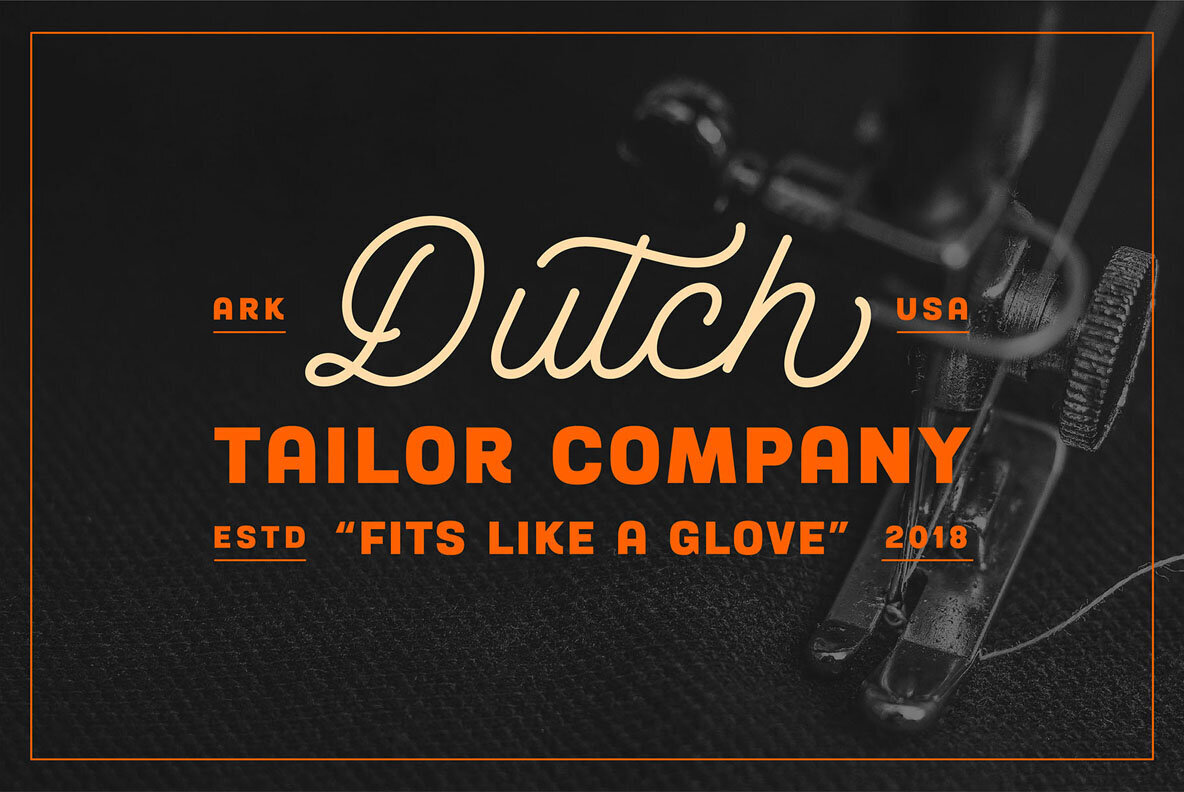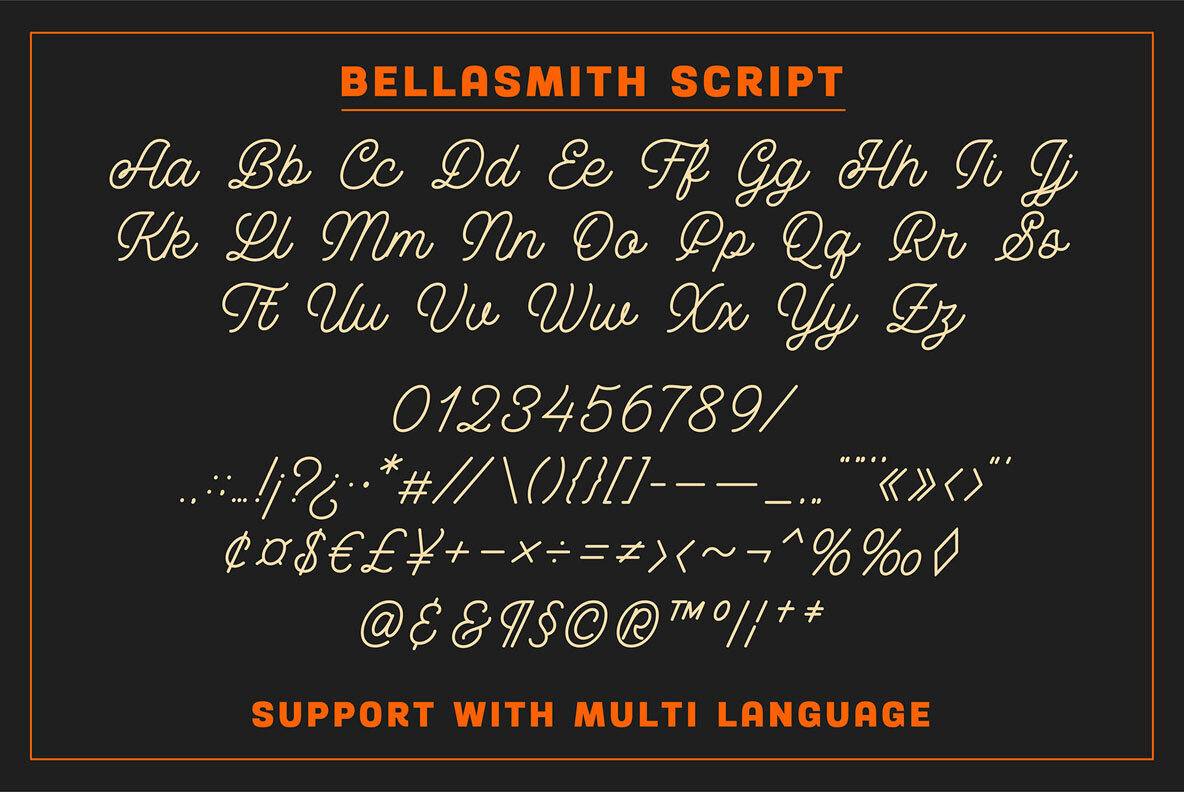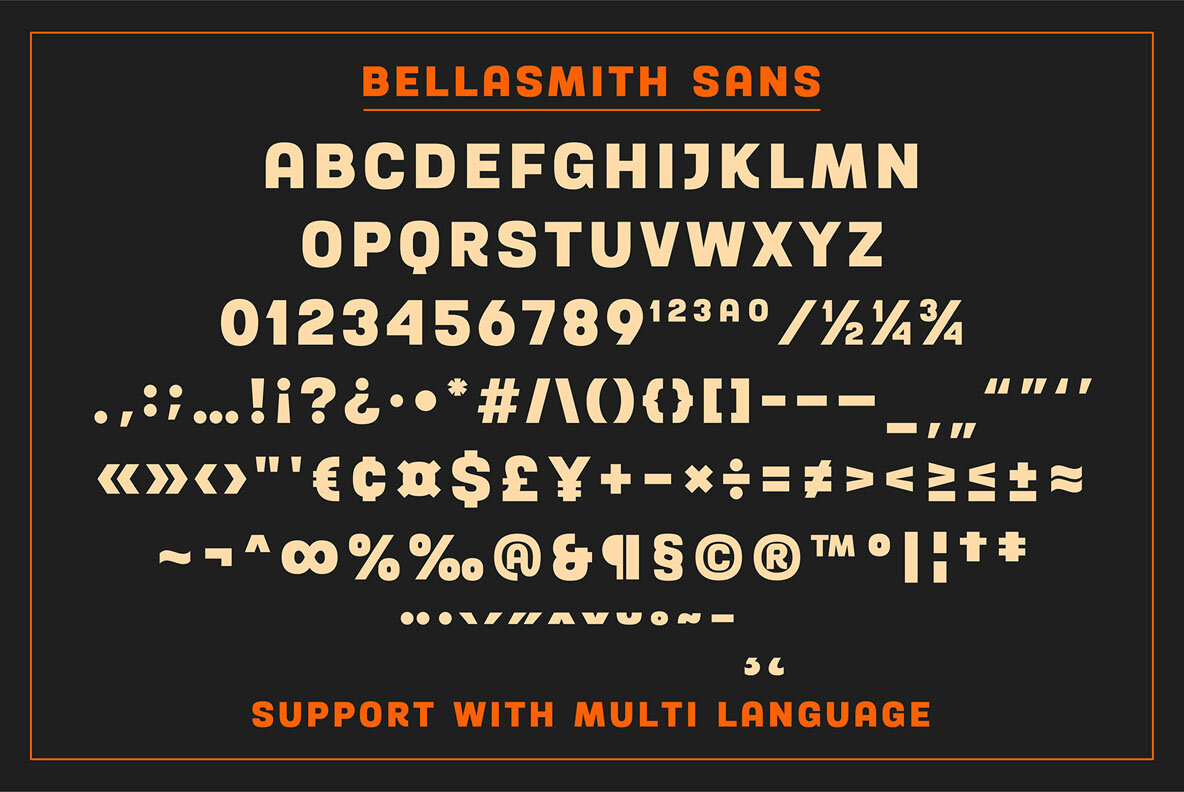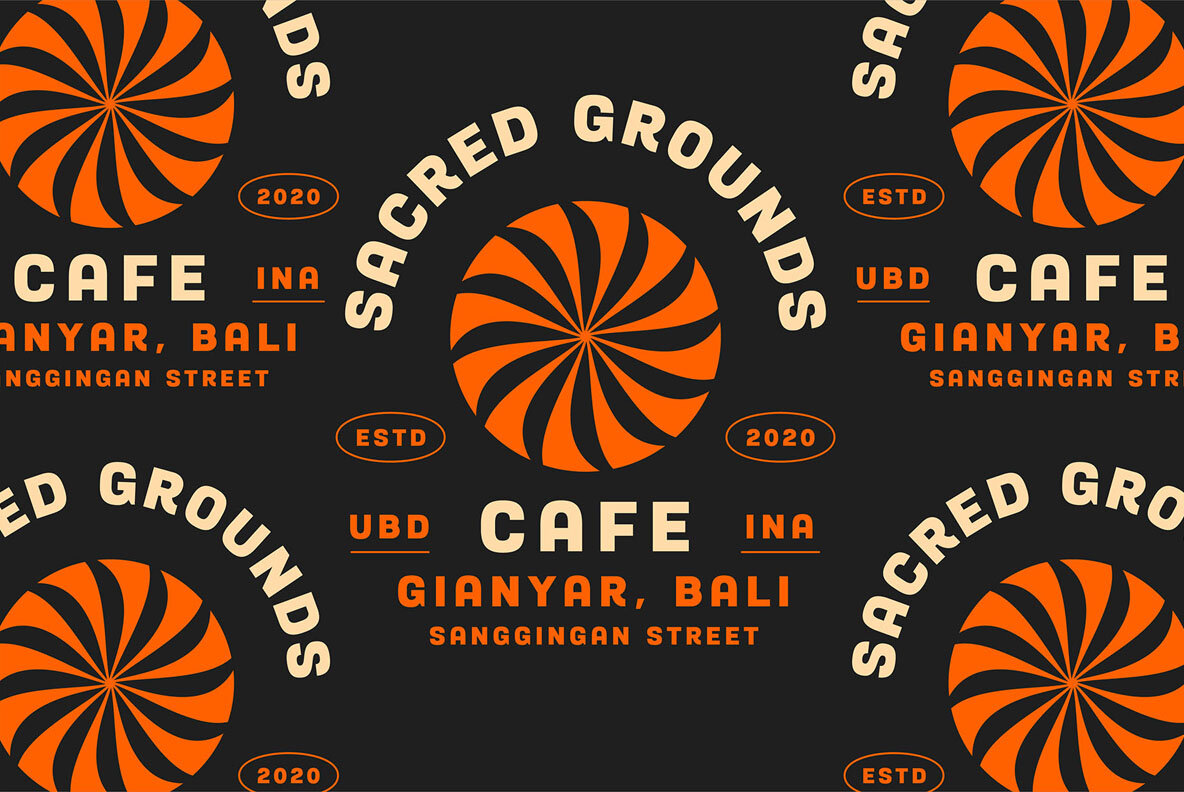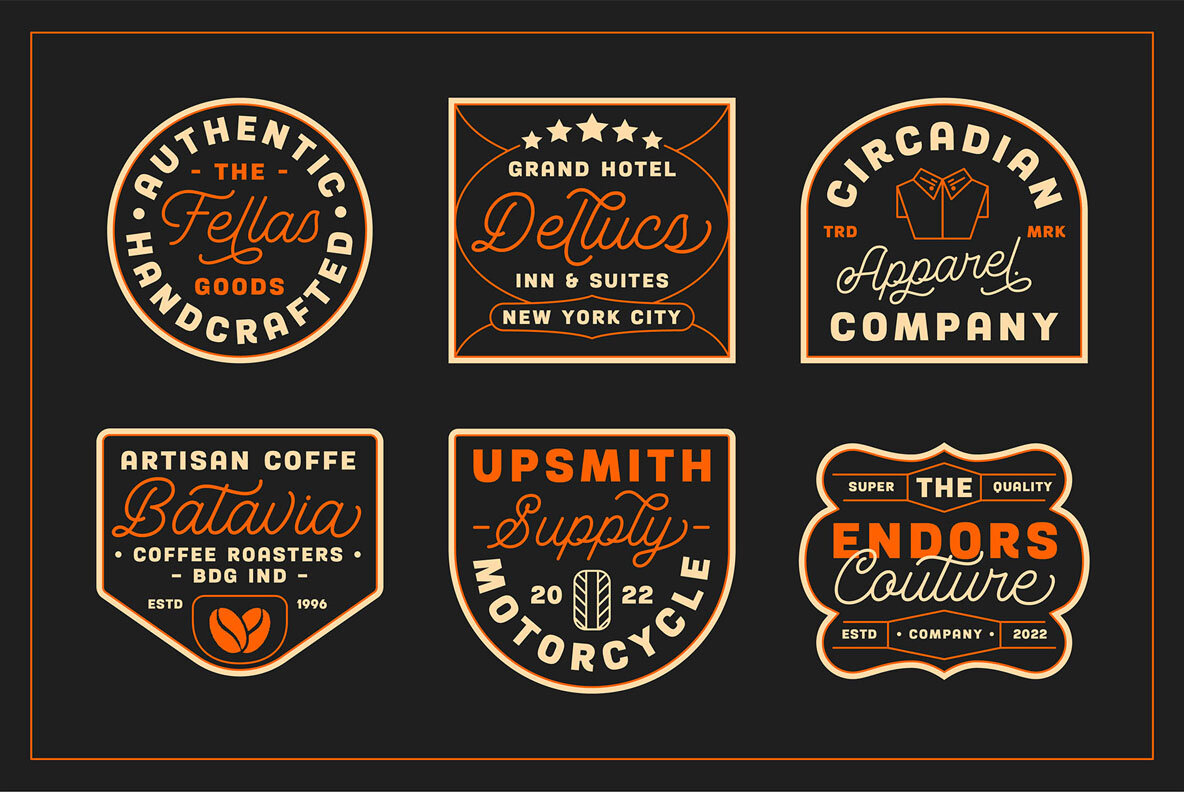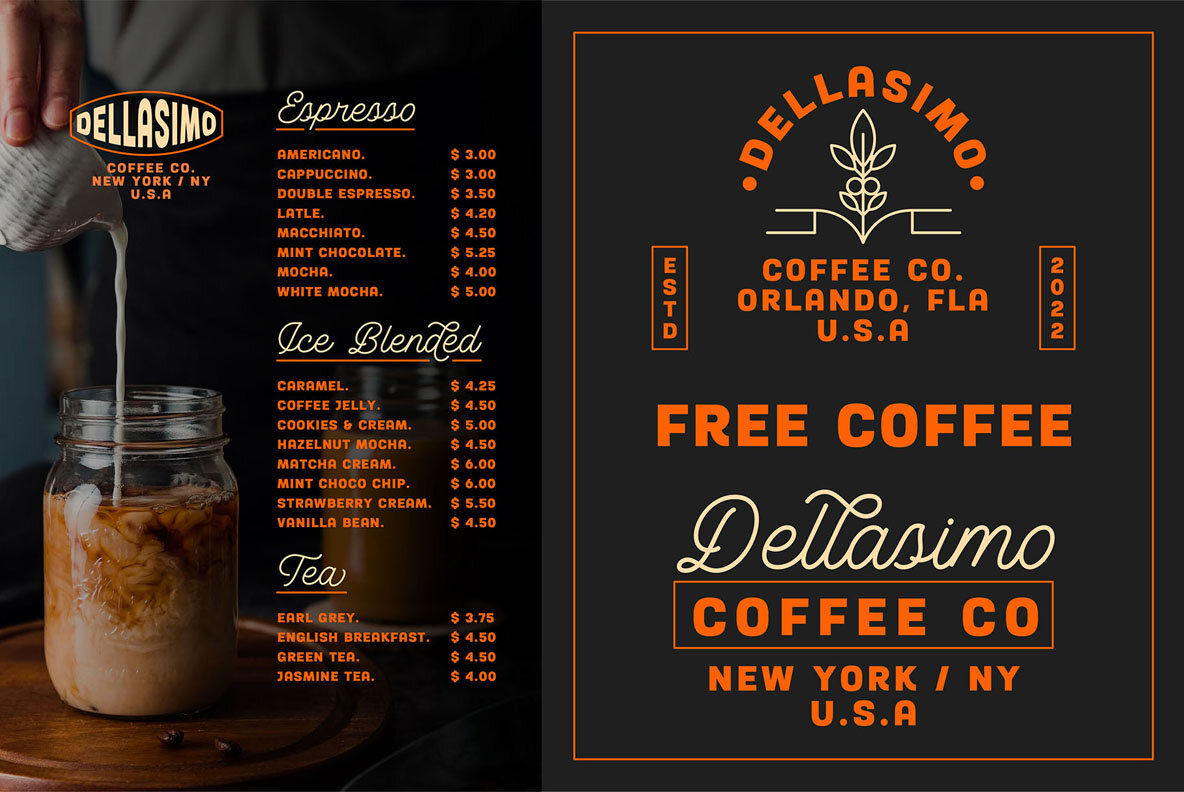
Bellasmith Font
Bellasmith is a clever combination of a bold sans and script typefaces, with just enough vintage- inspired detail to make it truly special.
Alternates / Swashes & Ligatures